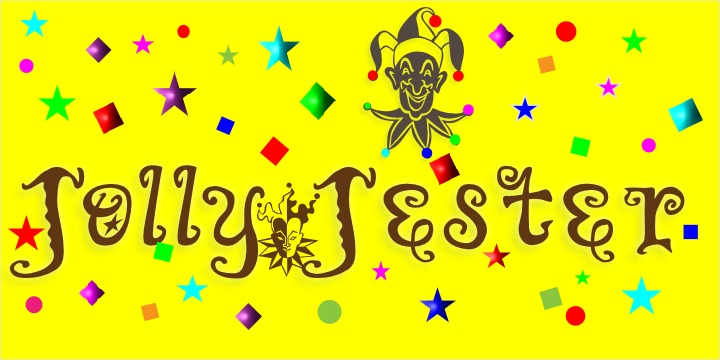
Jolly Jester is an irregular and whimsical typeface inspired by old type playing card jokers. Great for any humorous occasion, whether you're designing headlines, greetings, fairy tales or any number of other projects.
Jolly Jester includes a large assortment of extended characters to support many of Europe’s languages, including Czech, Danish, Dutch, Esperanto, Finnish, French, German, Italian, Hungarian, Polish, Portuguese, Romanian, Spanish, Swedish, Turkish & Welsh.